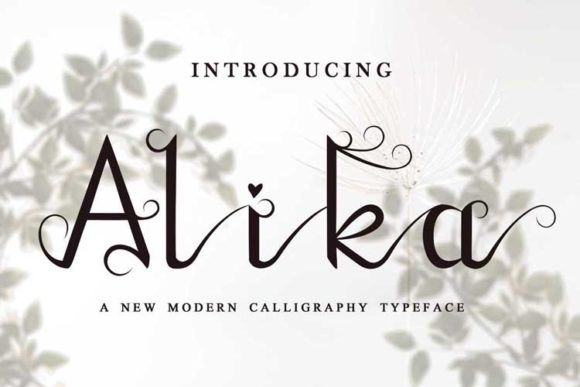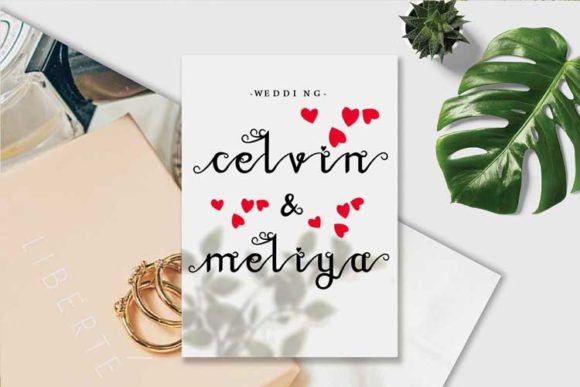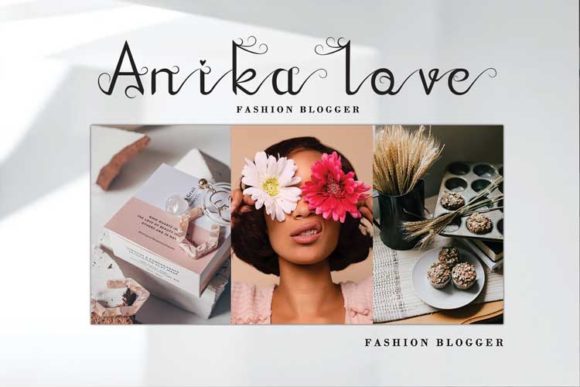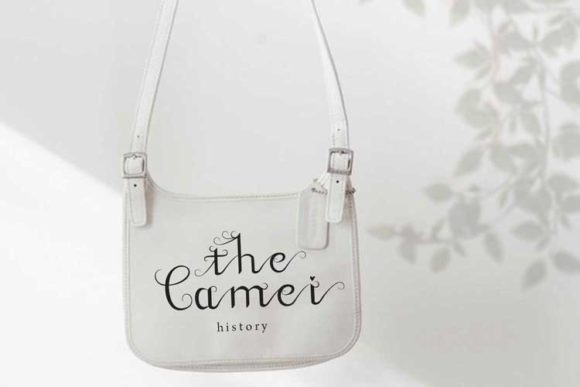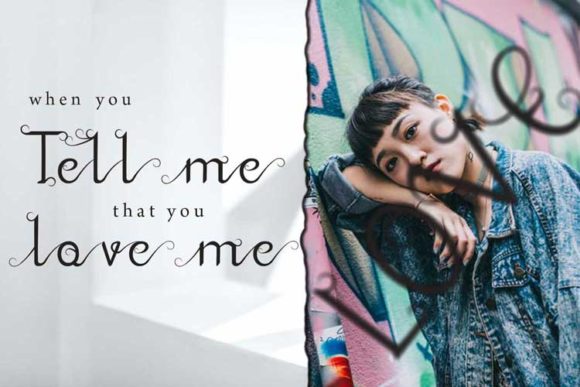
Alika Font
About Alika Font
Alika is beautiful and modern script font with many alternative styles, ligatures, swashes and glyphs.
It maintains its classy calligraphic influences while feeling contemporary and fresh. Fall in love with it and bring your projects to the highest levels!